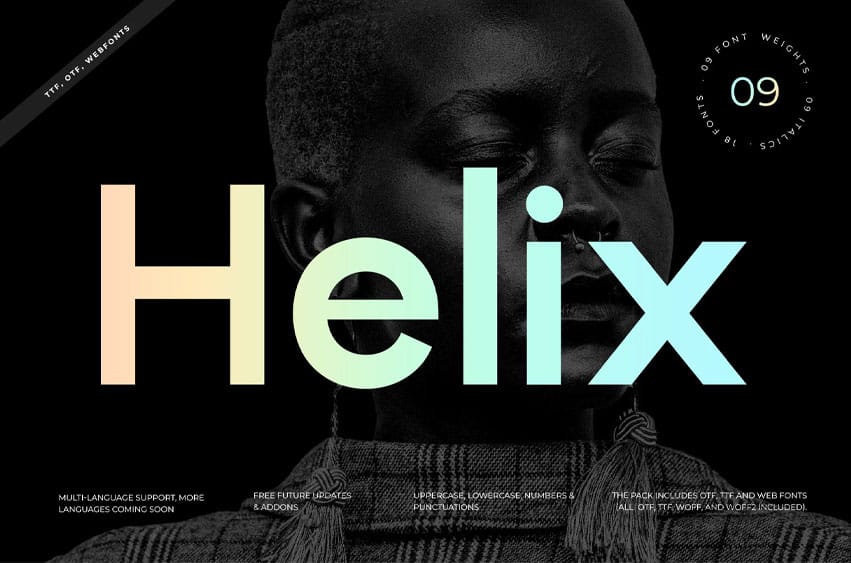
Helix Font is a modern sans-serif font family created with clarity, balance, and precision. Designed in a clean and minimal style, Helix is built for digital-first and professional design work.
The family includes 9 carefully designed weights, from Thin to Heavy, with matching italics, providing 18 fonts in total. Each weight is crafted with consistent proportions, spacing, and alignment, making it easy to maintain visual consistency across different layouts and screen sizes.
Helix is suitable for branding systems, logo design, user interfaces, web design, landing pages, dashboards, mobile apps, SaaS platforms, presentations, posters, banners, Instagram posts, social media graphics, reels, video titles, motion graphics, video infographics, YouTube thumbnails, advertising creatives, pitch decks, and digital marketing materials. Every style is optimized for screen readability and print clarity, ensuring reliable results across modern platforms.
- Multilingual Font
- Uppercase letters
- Lowercase letters
- 09 Weights
- 09 Italics
- 200+ Glyphs
- Punctuations